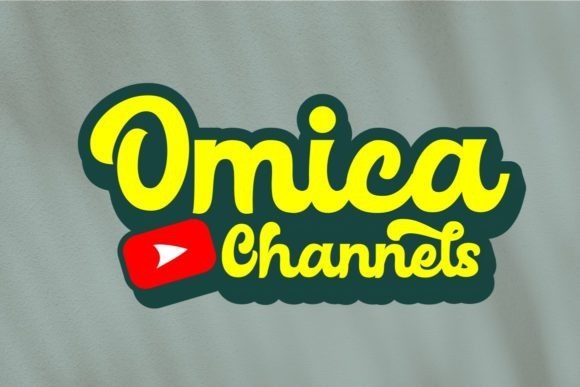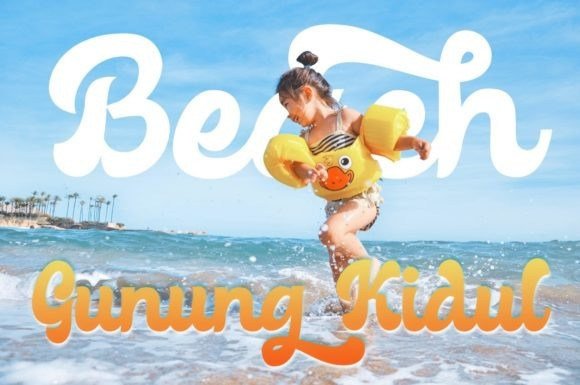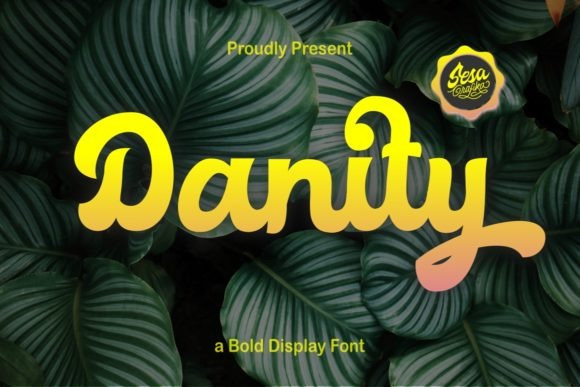
Danity Script Font
Danity Script Font is a gorgeous and retro styled display font. Add it confidently to your projects, and you will love the results. This font is PUA encoded which means you can access all of the glyphs and swashes with ease!